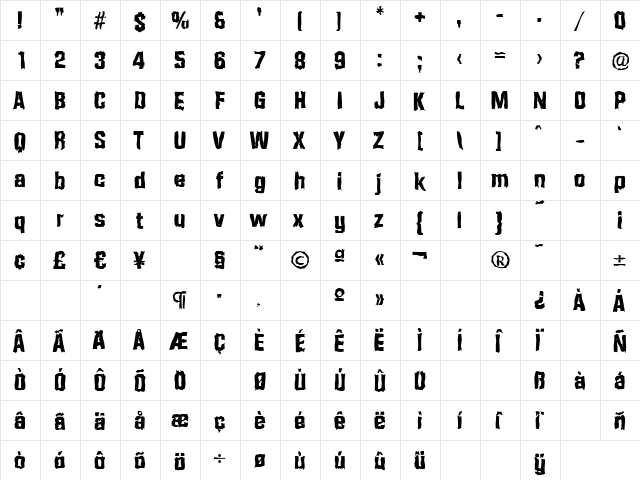
SeanBeckerRandom-ExtraBold Regular Font Preview
SeanBeckerRandom-ExtraBold Regular
SeanBeckerRandom-ExtraBold Regular Font Details
Design Context for SeanBeckerRandom-ExtraBold Typeface
SeanBeckerRandom-ExtraBold is a composed and adaptable typeface that performs quietly and consistently across a wide range of design contexts. The heavy weight commands attention and anchors typographic hierarchies.